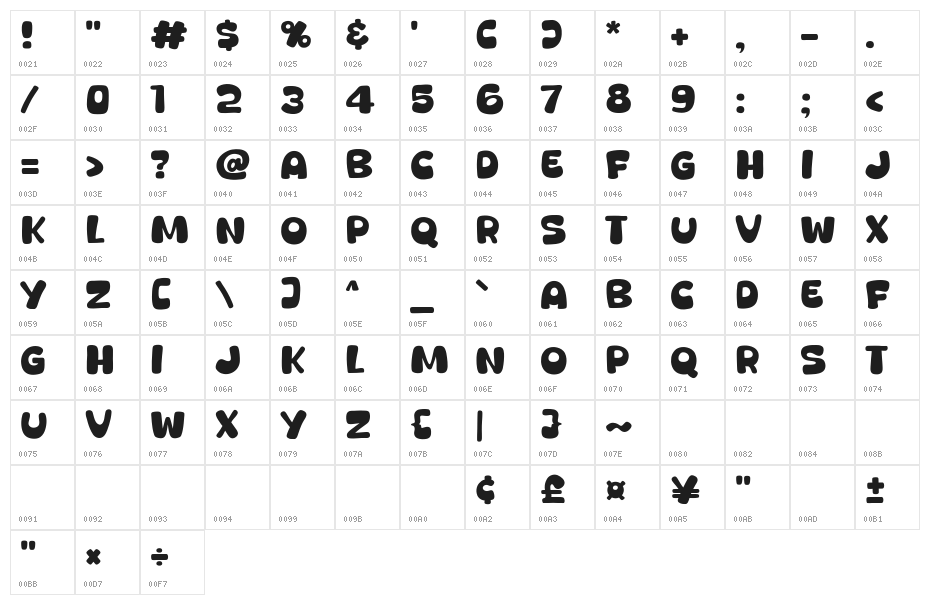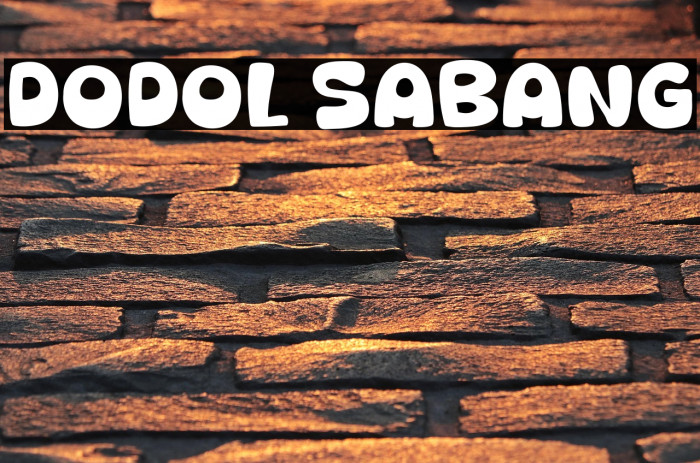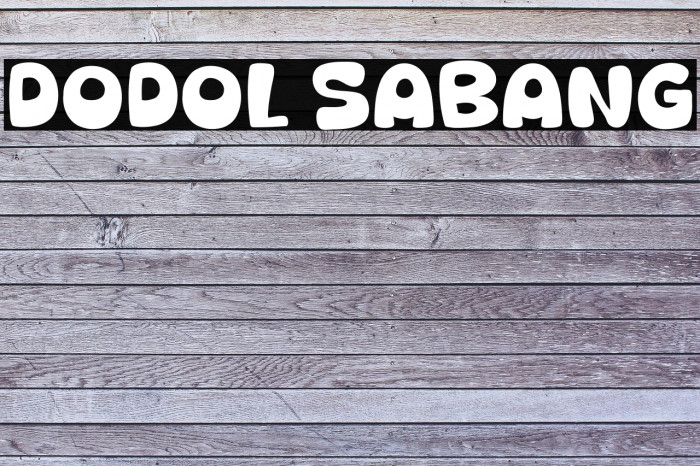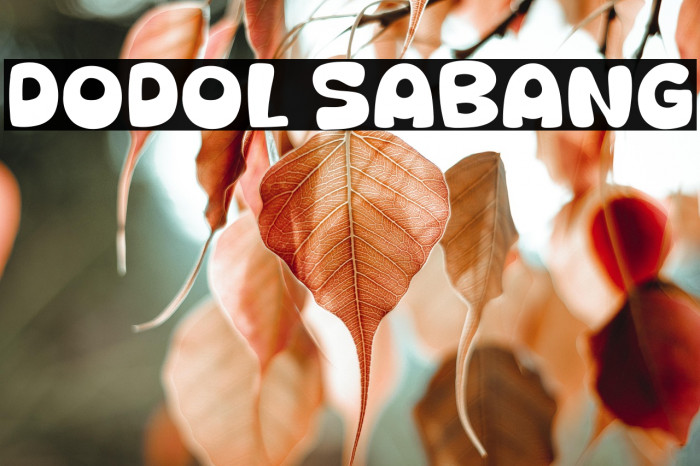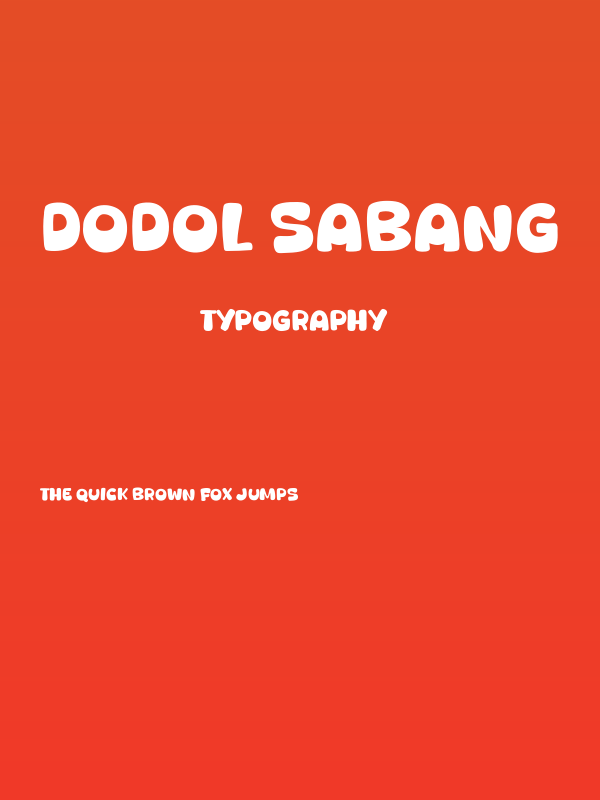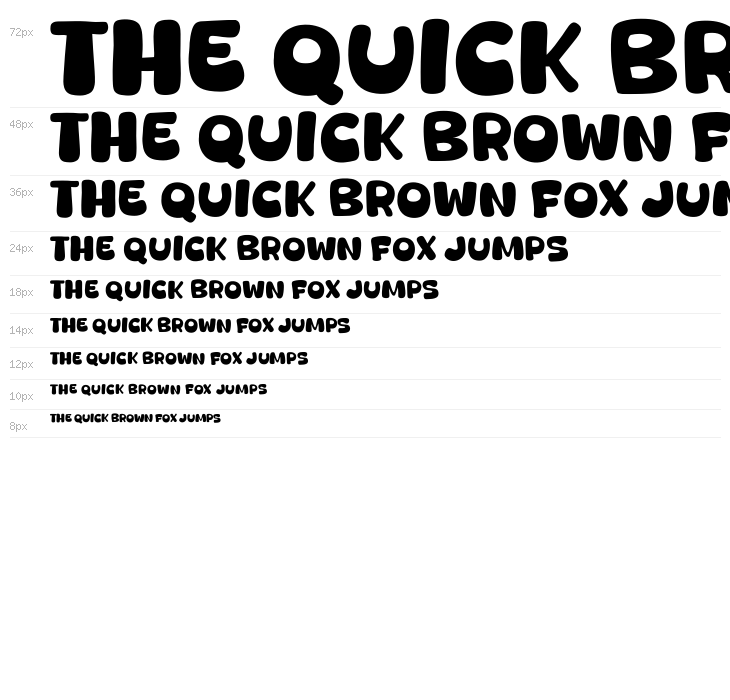
Dodol Sabang Font
Dodol Sabang Description
This font features a playful and bold design with rounded edges and a bubbly appearance. The characters are thick and have a uniform stroke width, giving them a strong presence on the page. The style is reminiscent of retro or vintage designs, with a touch of whimsy that makes it suitable for fun and informal applications. The letters are evenly spaced, contributing to a cohesive and balanced look. The numbers and special characters maintain the same playful aesthetic, ensuring consistency across all text elements.
| Proposed Projects | Ideal for children's books, playful branding, posters, and party invitations. |